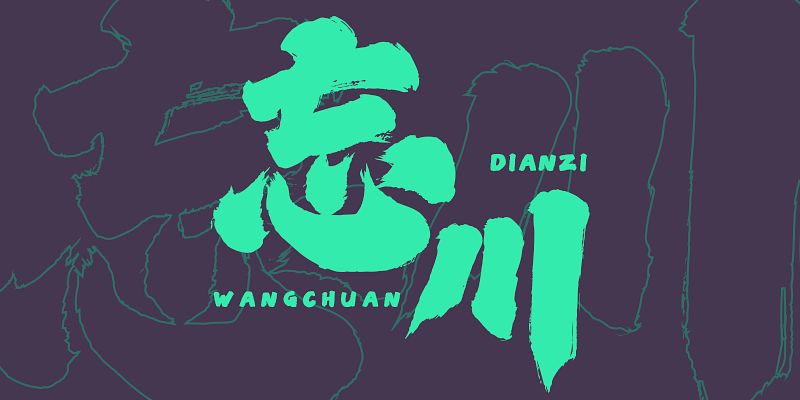
HelloFont ID Long Fei Shou Shu Font Free Download is a bold and energetic Chinese brush script typeface, capturing the dynamic essence of traditional calligraphy with a freehand, unrestrained style. The name “Long Fei Shou Shu” (龙飞手书) translates roughly to “Flying Dragon Handwriting,” which perfectly reflects the font’s lively, sweeping strokes and powerful brush texture.
Ideal for martial arts posters, movie titles, event branding, restaurant signage, or any creative project that seeks a strong, expressive typographic presence, HelloFont ID Long Fei Shou Shu Font Free Download is all about movement and intensity. Its design channels the spirit of ink-and-brush writing while maintaining clear readability and visual impact.
The font supports simplified Chinese characters and basic Latin, making it suitable for bilingual use where drama and personality are essential.
Fierce, fluid, and full of calligraphic power—HelloFont ID Long Fei Shou Shu is your go-to font when you want your message to leap off the page with strength, tradition, and artistic energy.